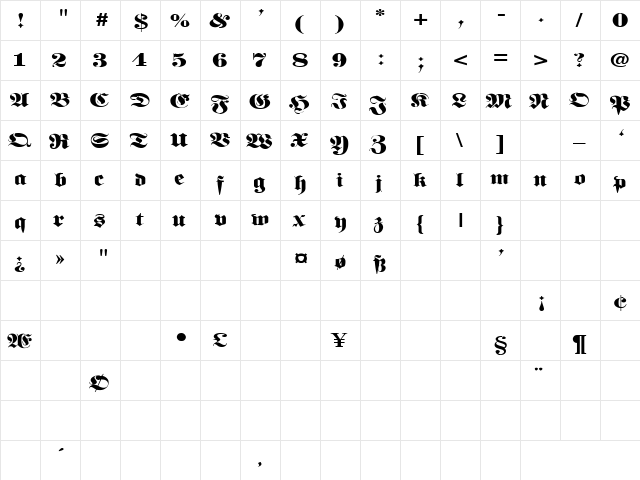
Golf 3 Regular
Design Context for Golf 3 Typeface
Golf 3 takes a measured approach to typography — its balanced proportions and neutral character make it a reliable workhorse for both digital and print work.